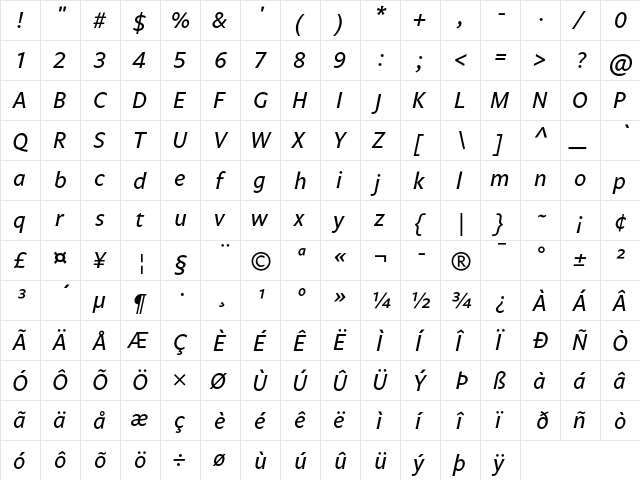
Legato LF Regular Italic
Design Context for Legato Typeface
Legato is a composed and adaptable typeface that performs quietly and consistently across a wide range of design contexts. The dynamic lean of this cut emphasises speed and emphasis in any layout.
Pro Tip: Try Legato for annotation and caption copy alongside an upright companion — the contrast in angle creates a dynamic but ordered typographic system.